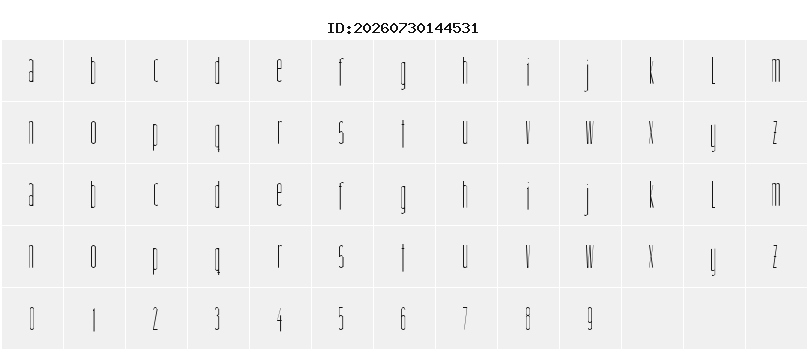
• Font Name: linnette
• Full Font Name: linnette
• Designer: estoeslomio
About linnette.ttf
linnette.ttf is a modern, elegant sans-serif font designed for ultimate readability and visual harmony. Perfect for branding, headlines, web design, and print materials.